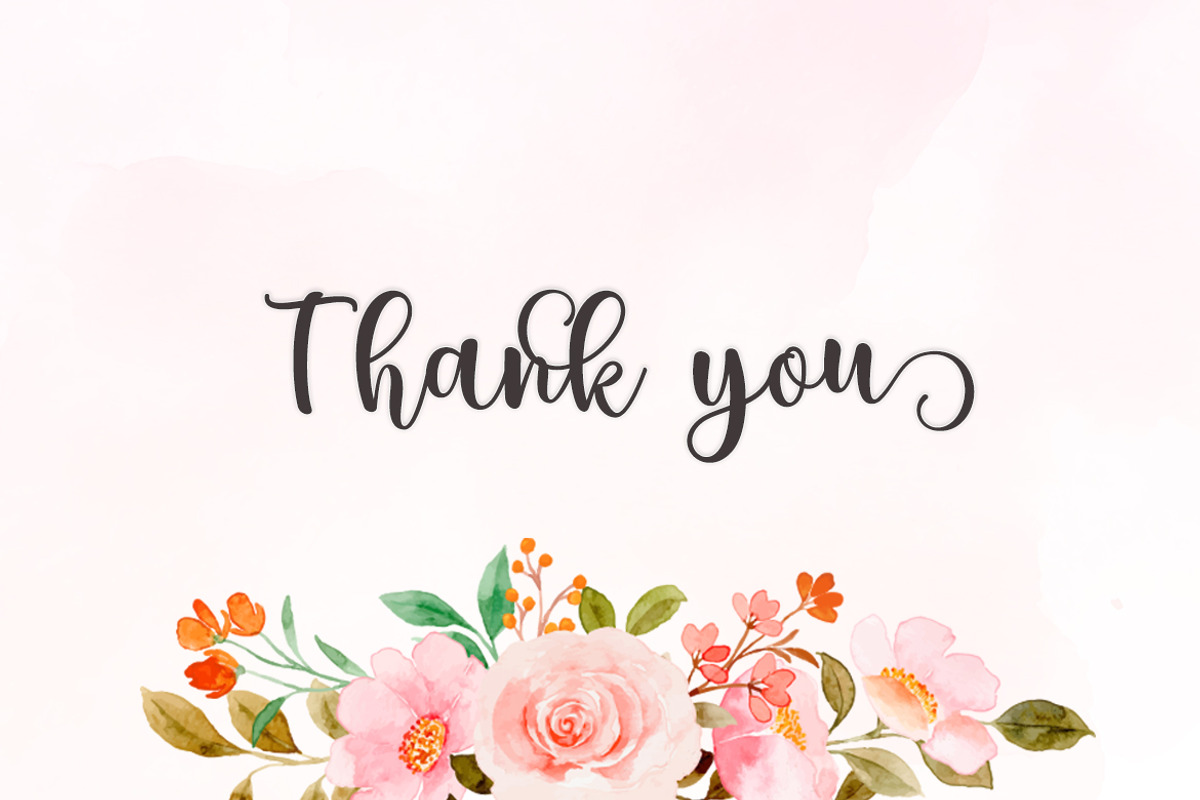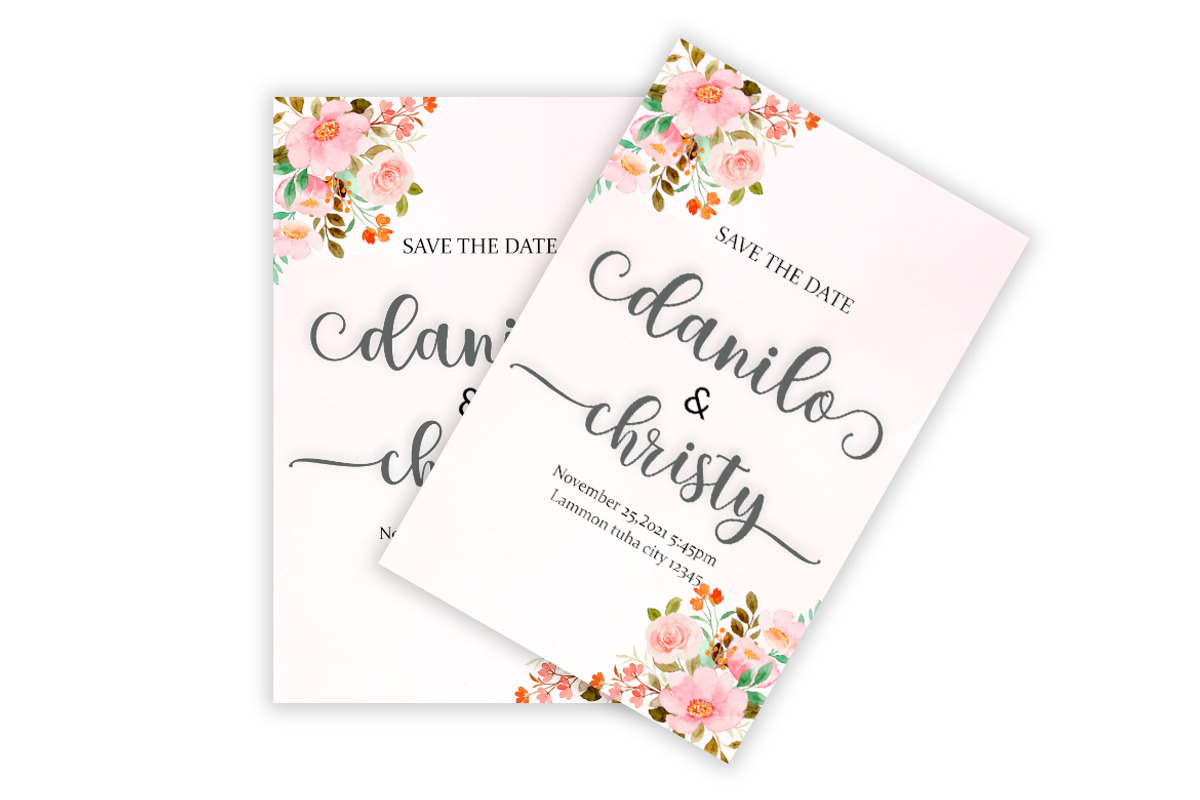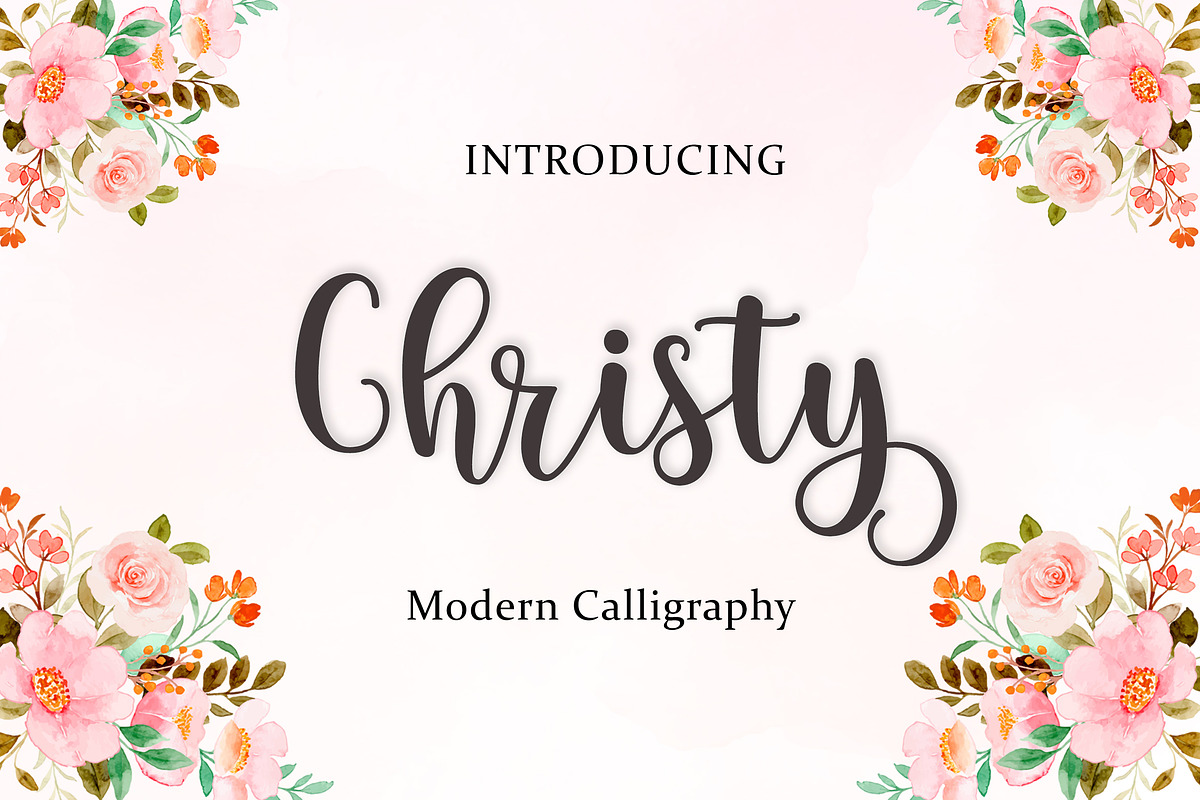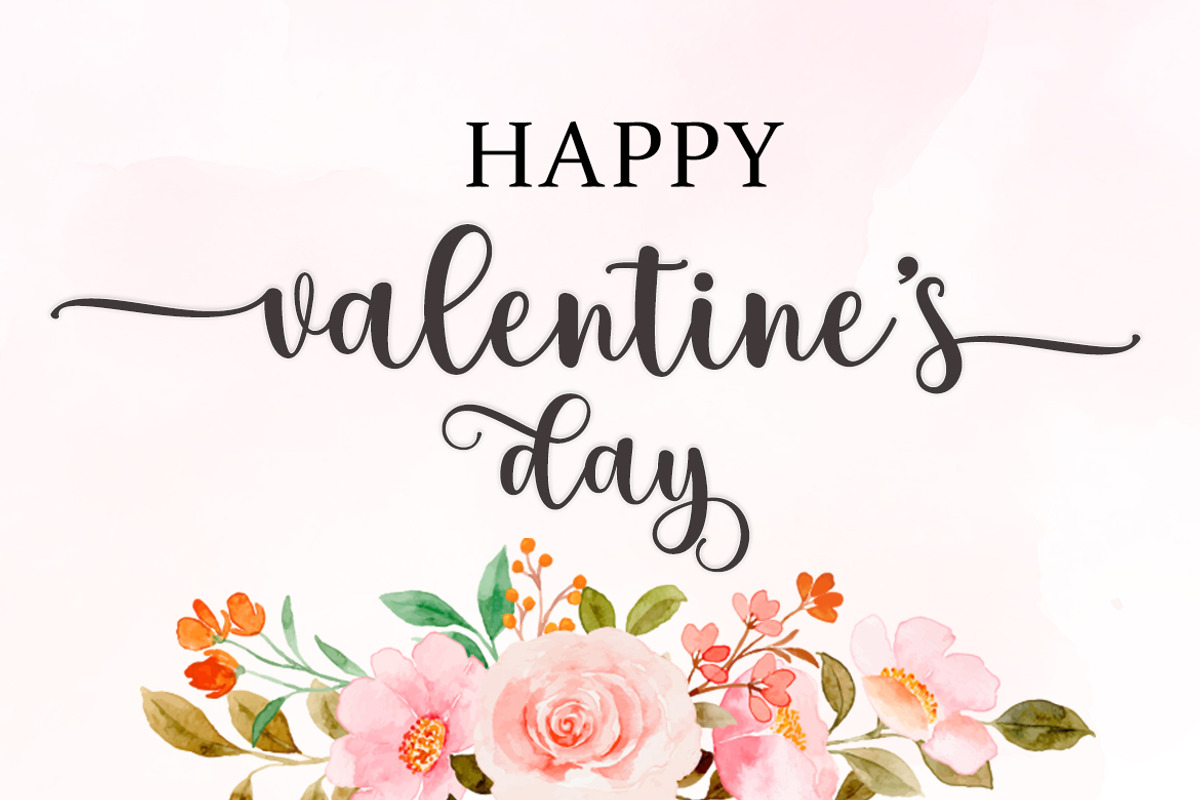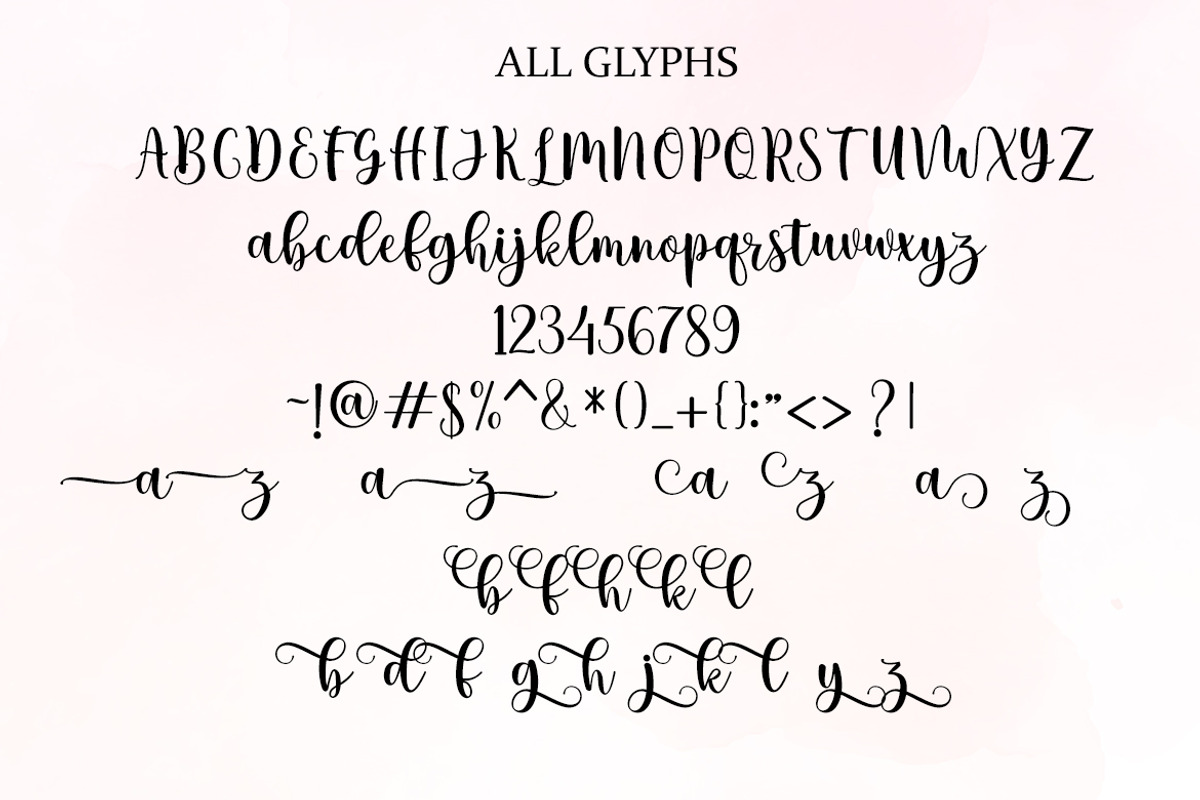
Christy
Christy is a delicate and stylish script font. This font is PUA encoded which means you can access all of the glyphs and swashes with ease! Fall in love with its incredibly versatile style and use it to create spectacular designs!